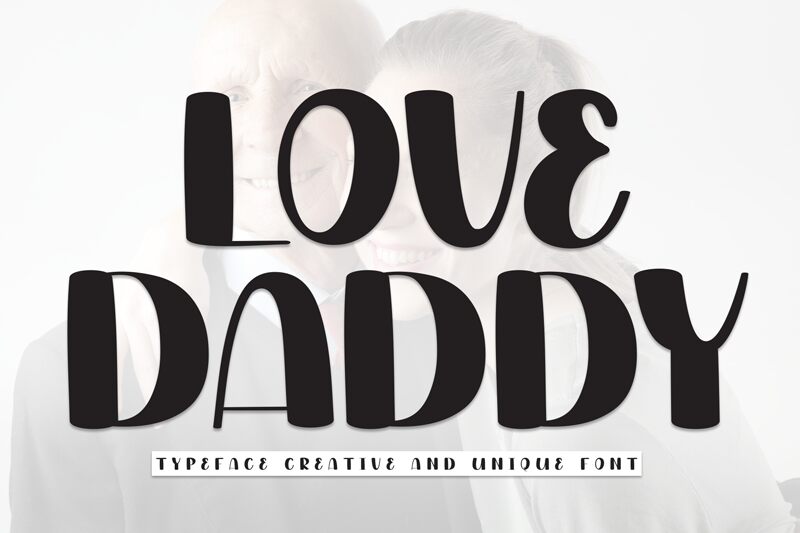
Love Daddy
Love Daddy font is presented by Andi Moz as a cartoon-themed display font which can be perfect for any project that requires vivid visuals. Its playful style and bold weight will allow for truly impactful presence with the text. Further, its elements are inspired by Victorian design and all these features combined will create a theatrical essence and nostalgic vibe.